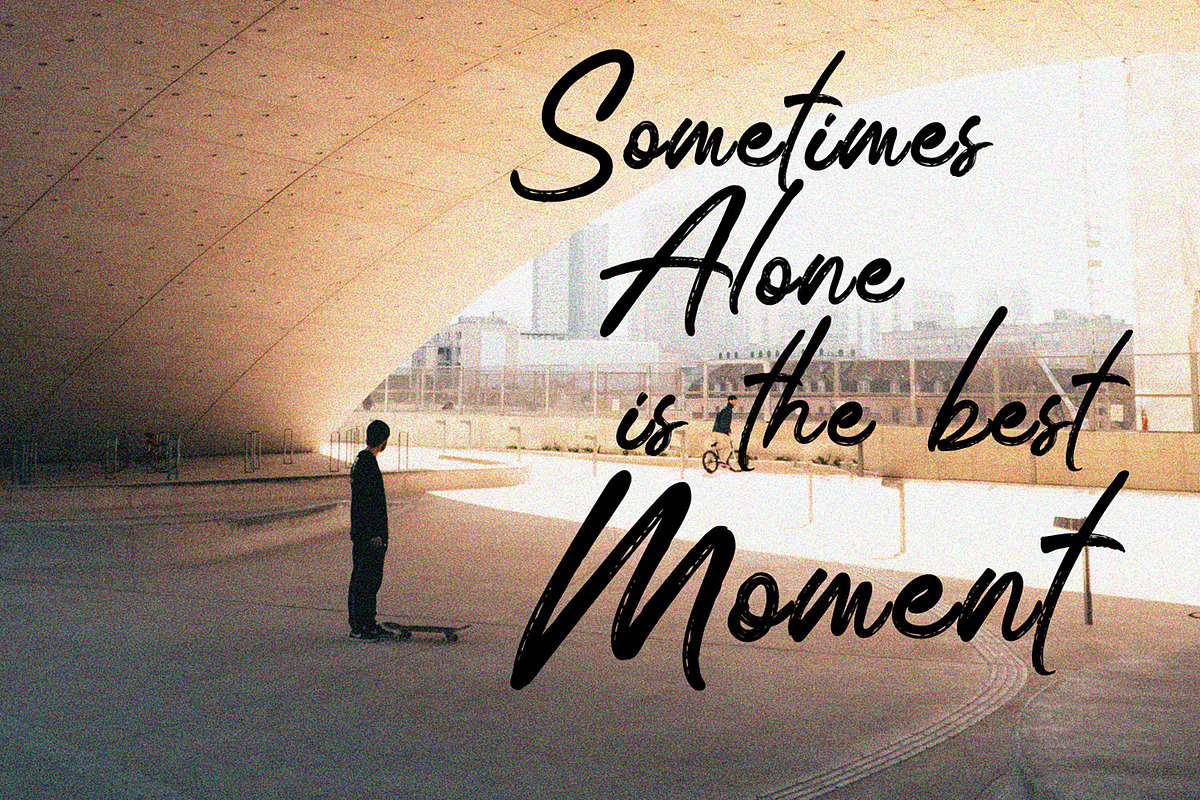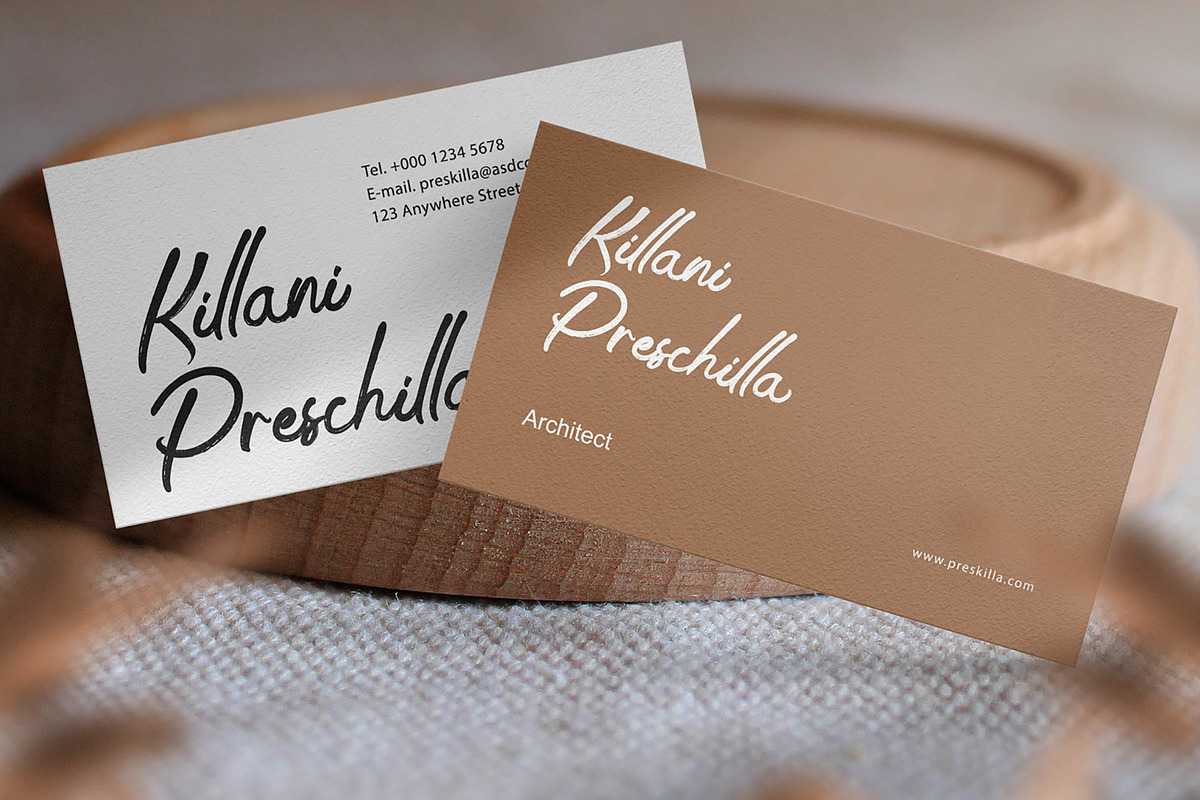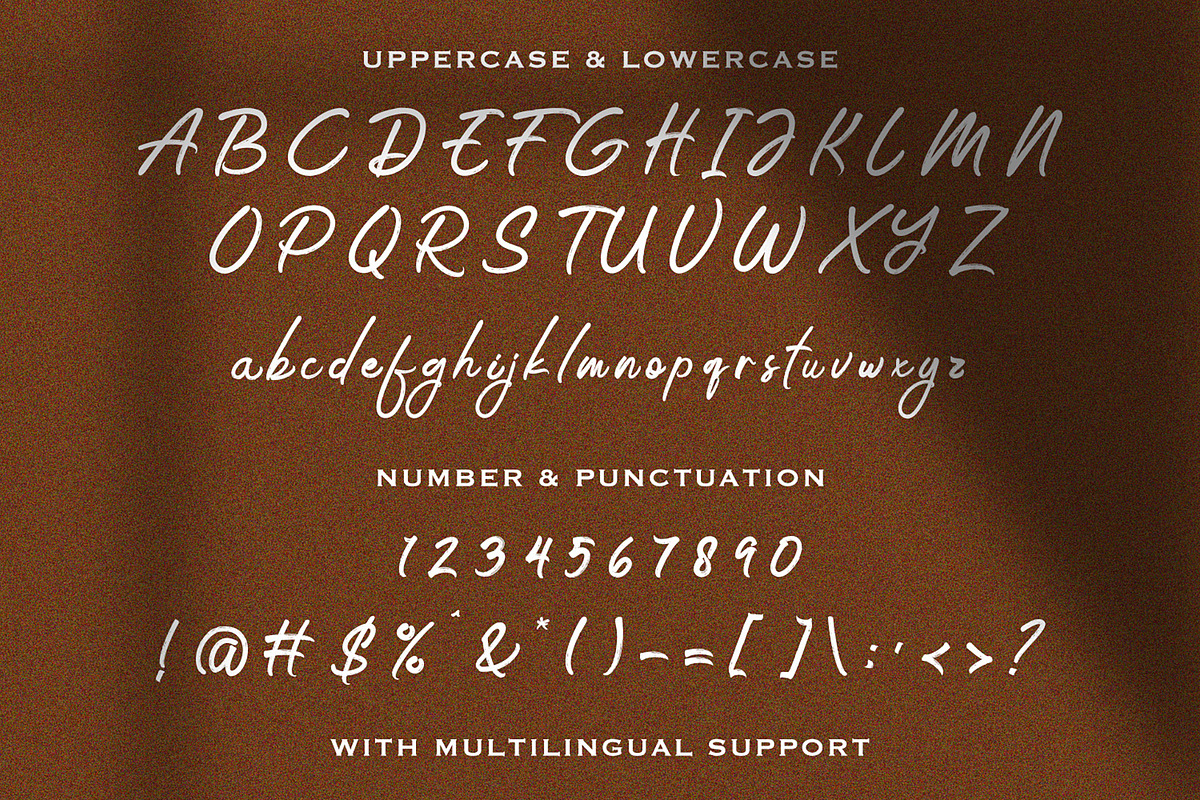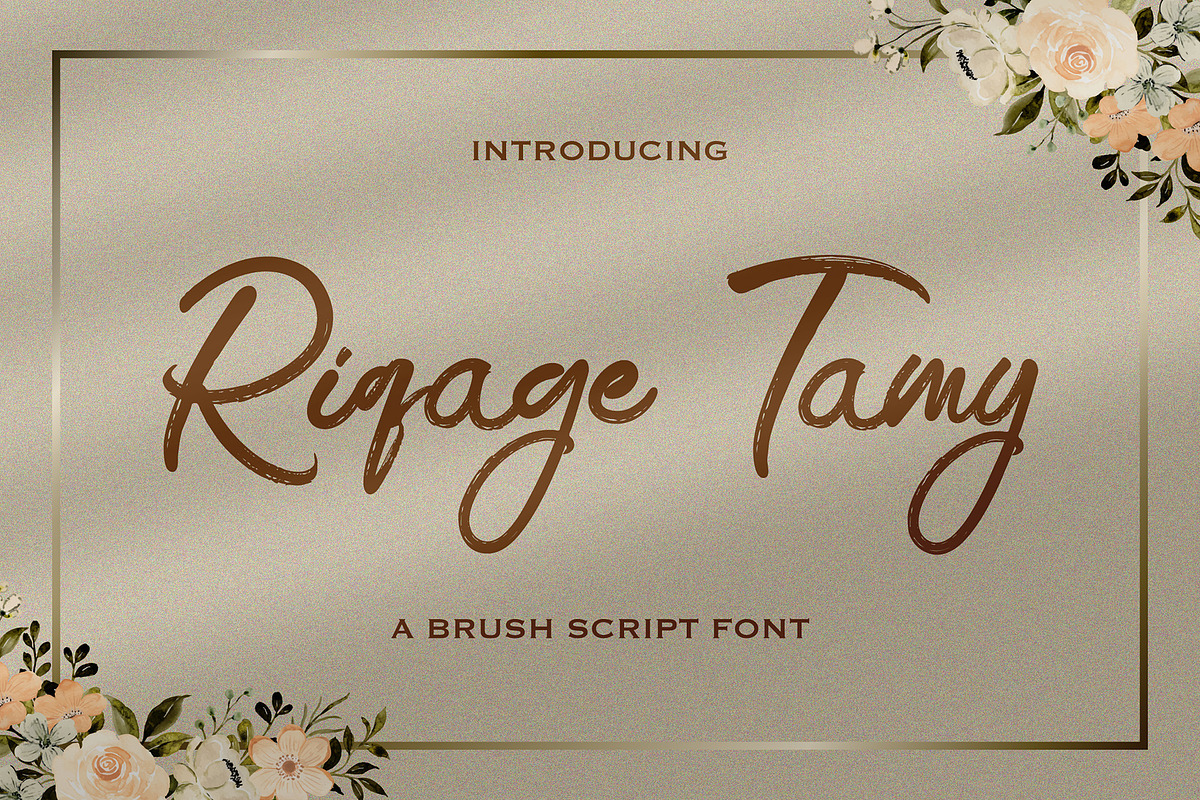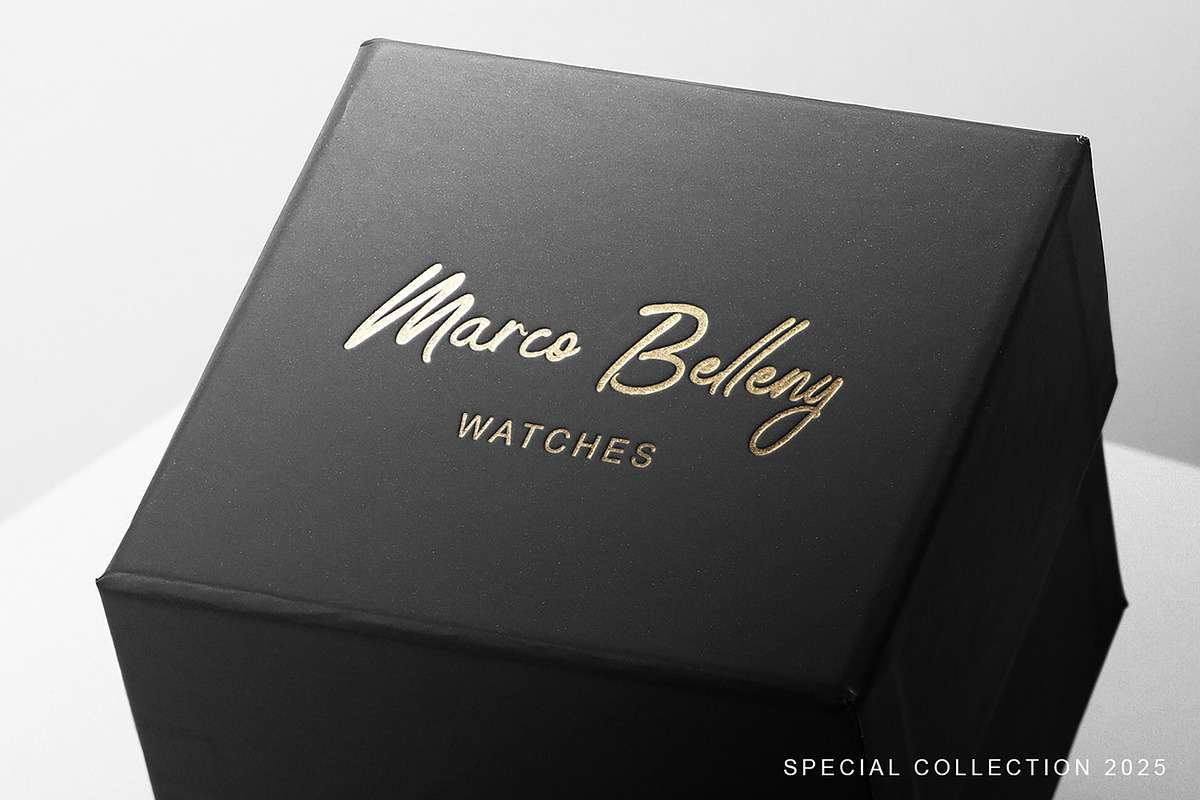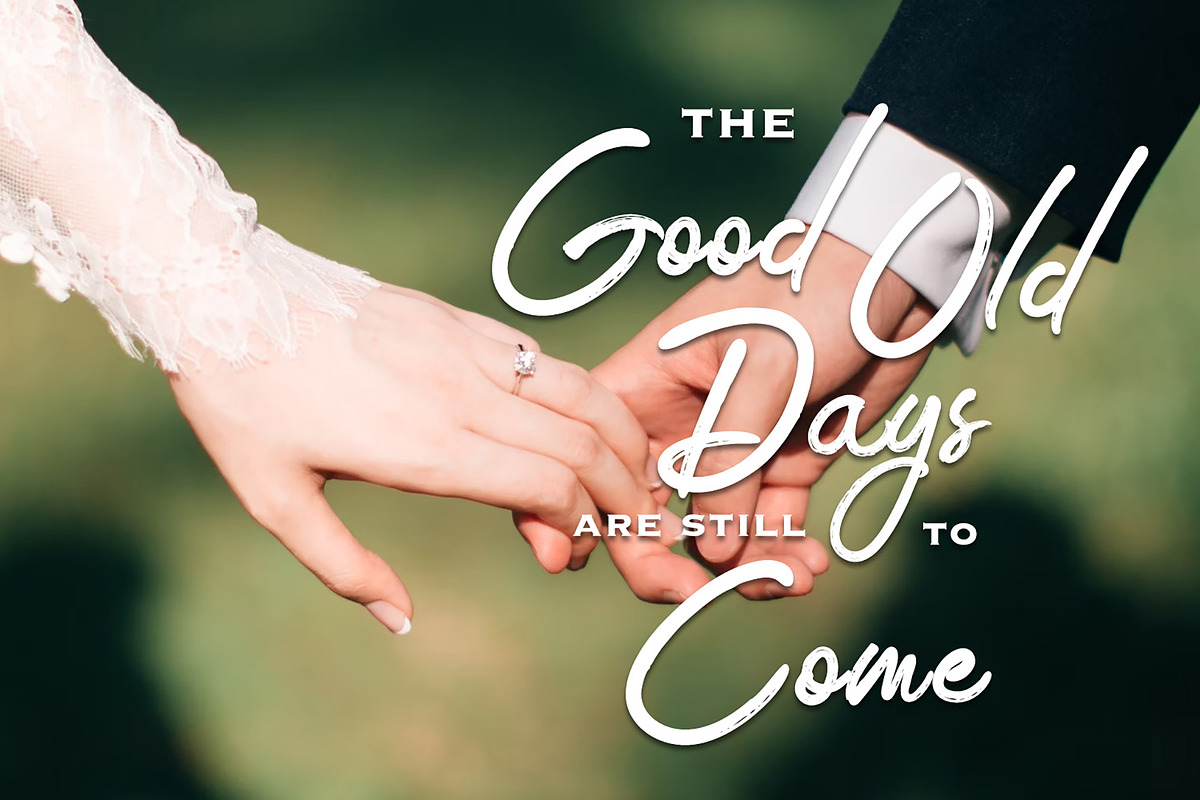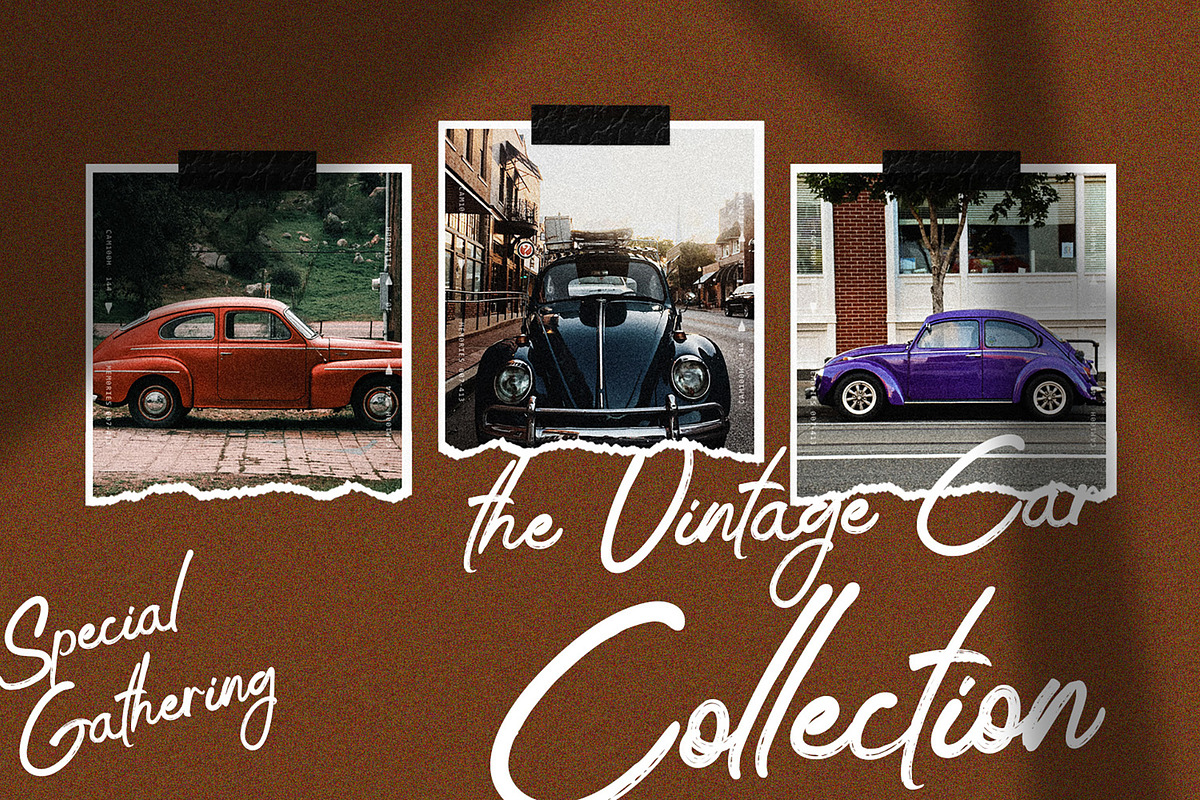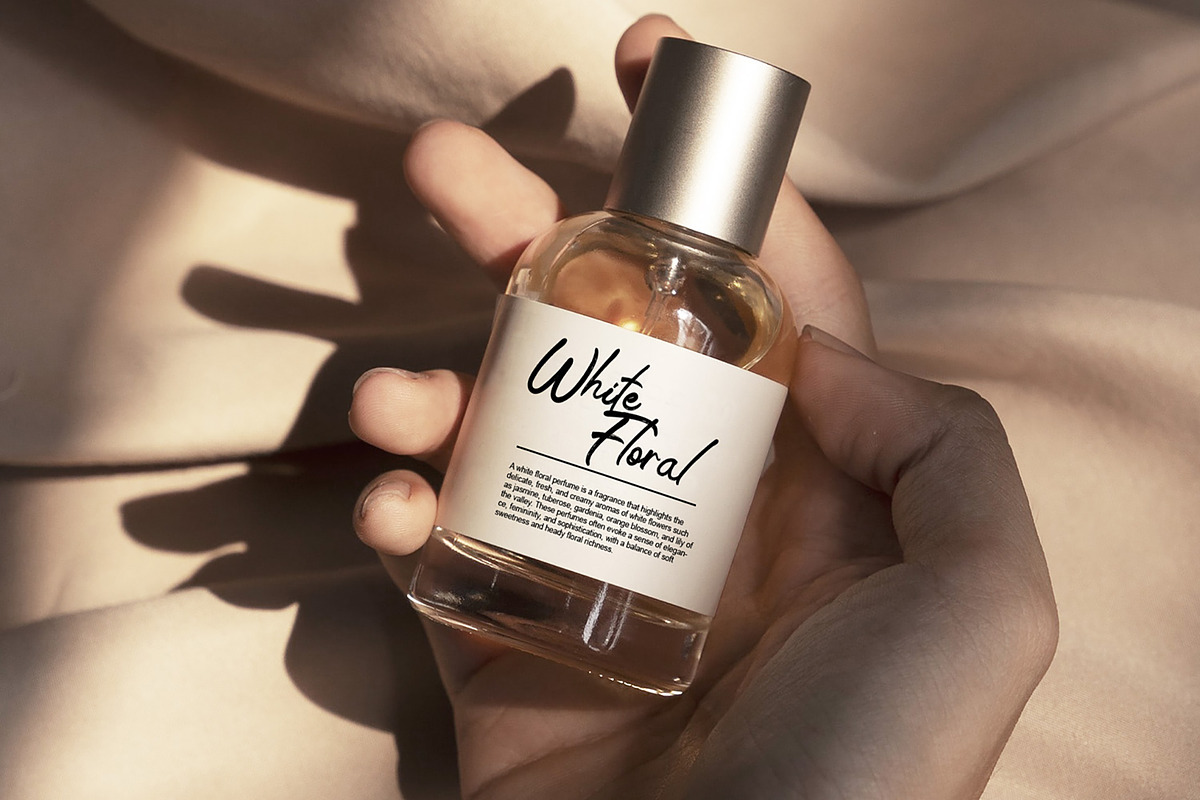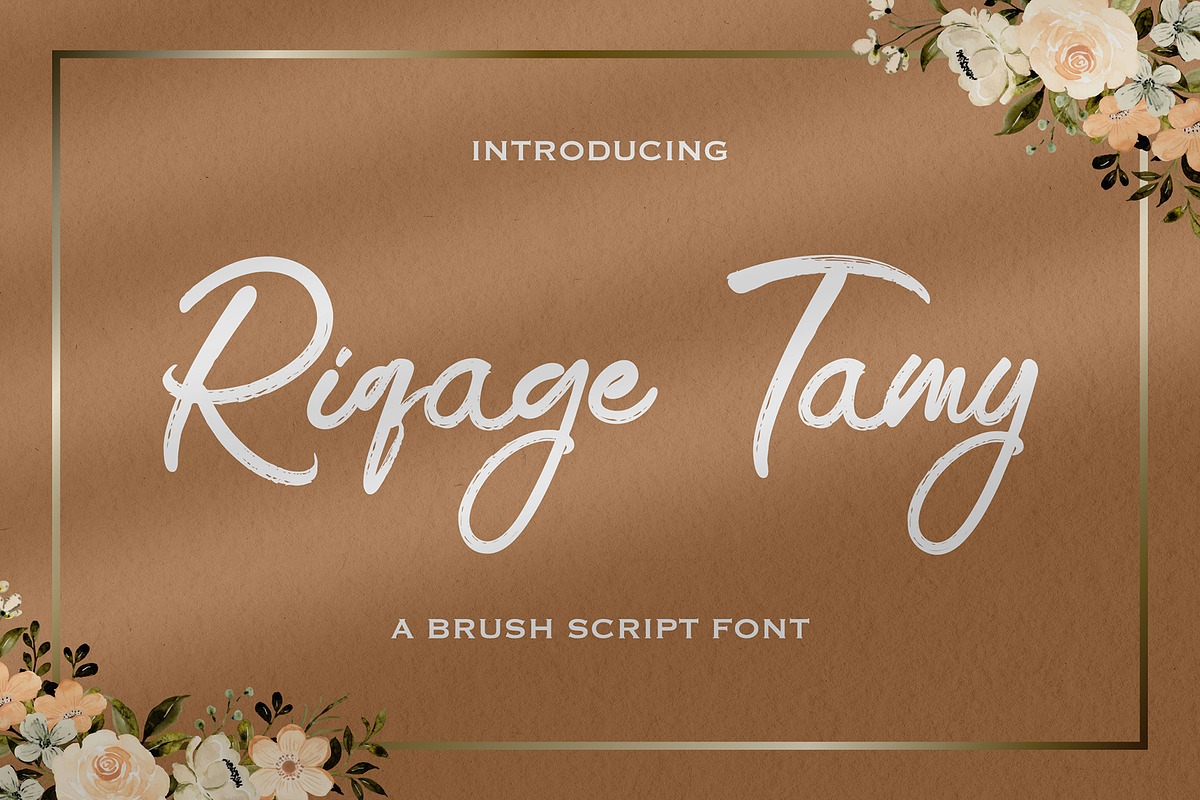
Riqage Tamy - Brush Script Font
Modern, Creative, & Fancy - Brush Script Font
Perfect for Logotype, brand logo, apparel design, clothing, fashion, creative industry, signature, headline/title on poster, brochure, packaging, wedding invitation, quotes, magazine, social media etc.